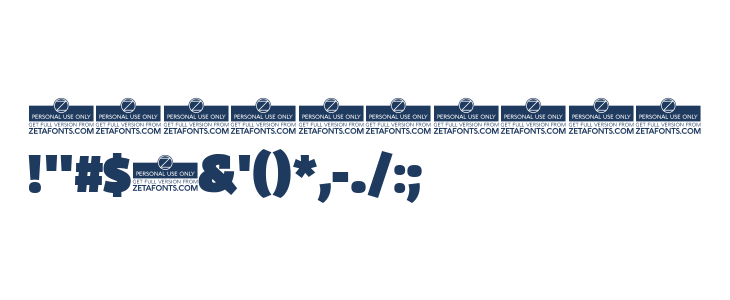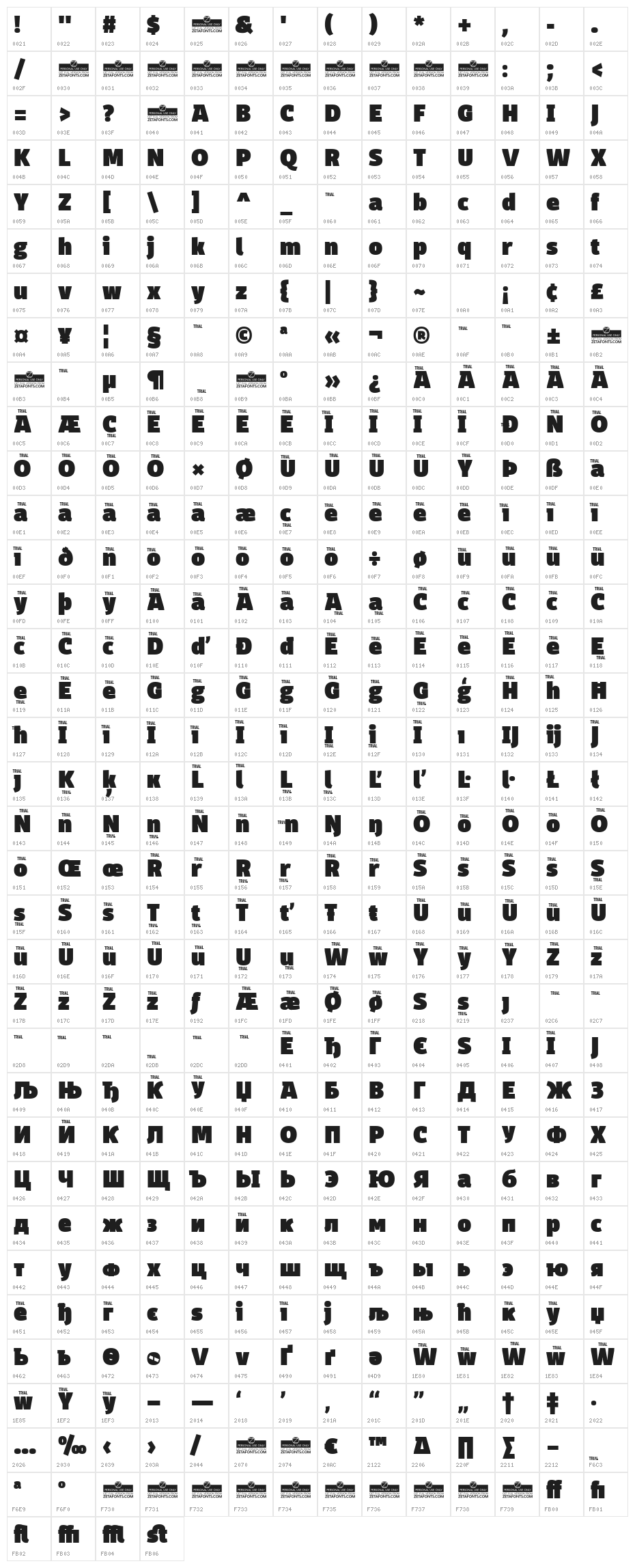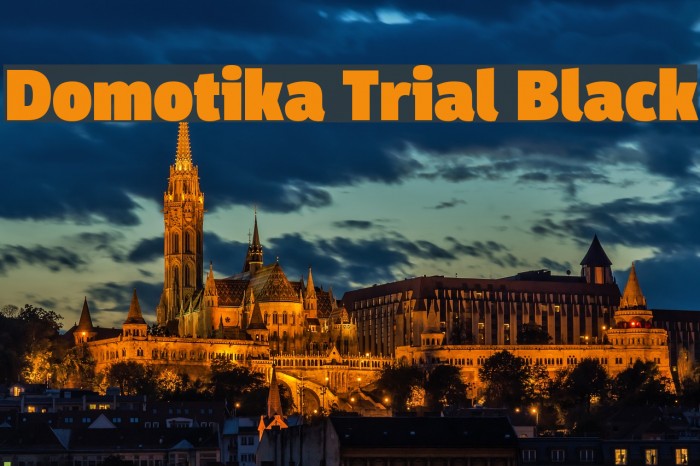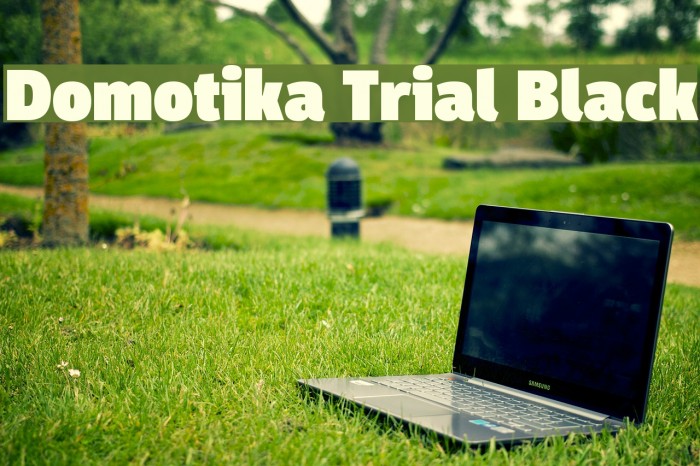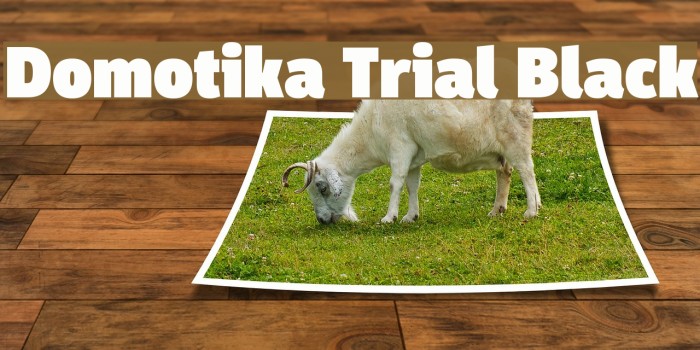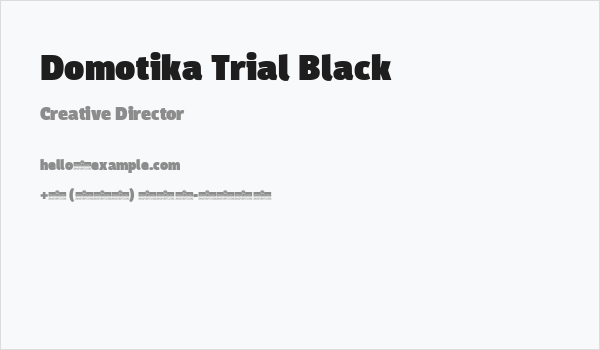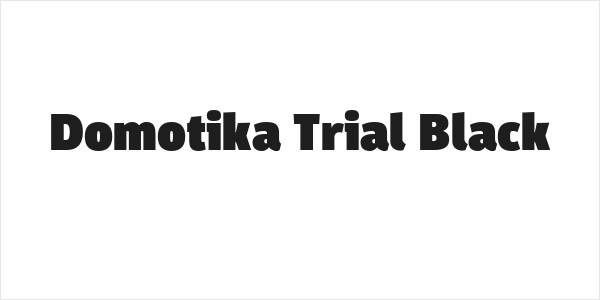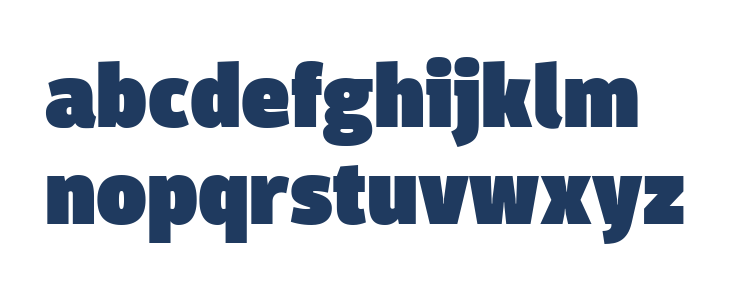
Domotika Trial Black Font
Domotika Trial Black Description
This font features a bold and assertive style with thick, uniform strokes that convey strength and impact. The characters are designed with a modern aesthetic, showcasing a geometric influence that is both clean and powerful. The uppercase and lowercase letters maintain a consistent weight, providing a cohesive look across all text. The numerals and special characters are equally robust, ensuring readability and emphasis. This font is ideal for making a statement, with its strong presence and clear legibility.
| Proposed Projects | Ideal for branding, headlines, posters, and any design requiring a strong visual impact. |